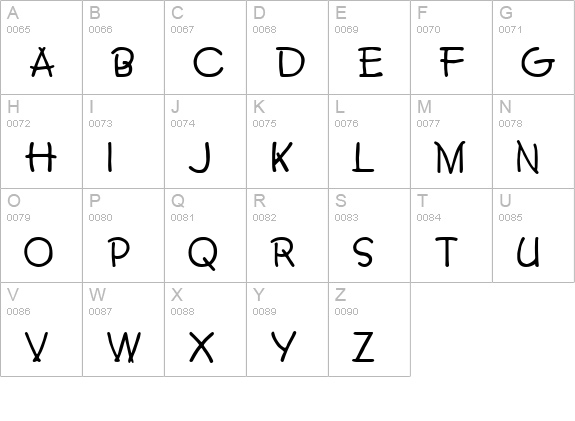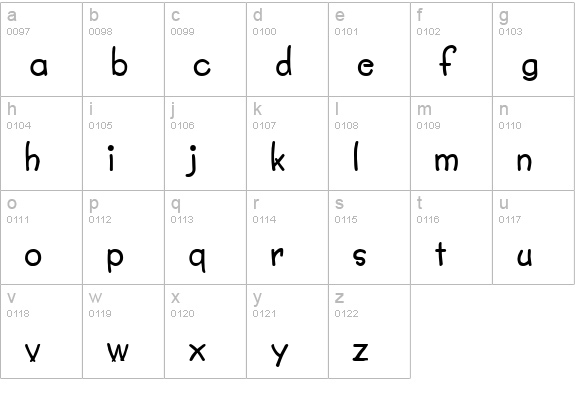
Novene Font Details
Novene font is a modern and elegant typeface that exudes sophistication and style. With its sleek lines and clean design, this font is perfect for creating eye-catching headlines, logos, and branding materials. The versatility of Novene font allows it to be used in a variety of design projects, from print materials to digital graphics. What makes Novene font even more appealing is that it is available for free download at FontsMarket.com. This means that you can easily access this high-quality font without any cost, making it a fantastic resource for designers and creatives looking to elevate their work. Don't miss out on the opportunity to enhance your designs with Novene font's unique and timeless aesthetic.